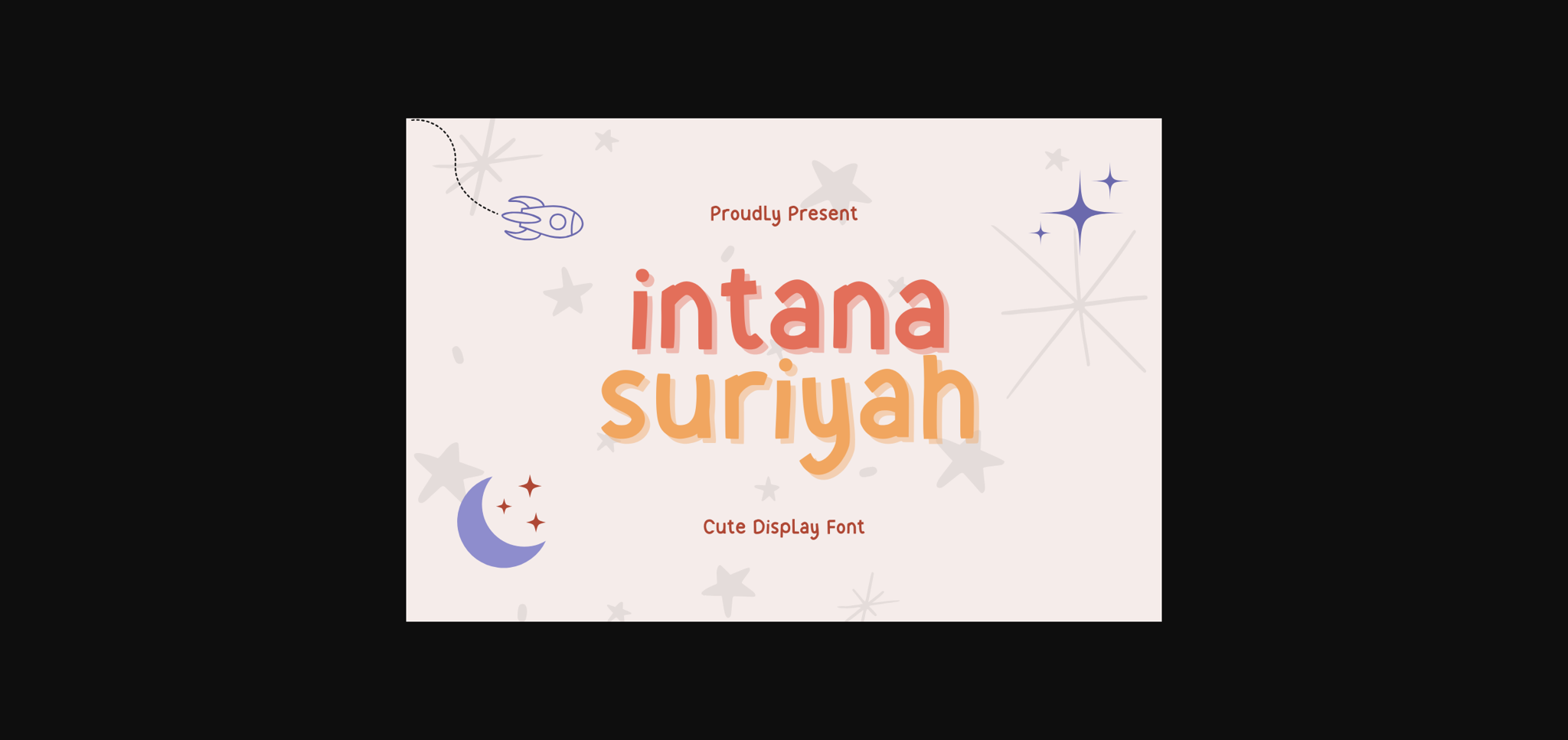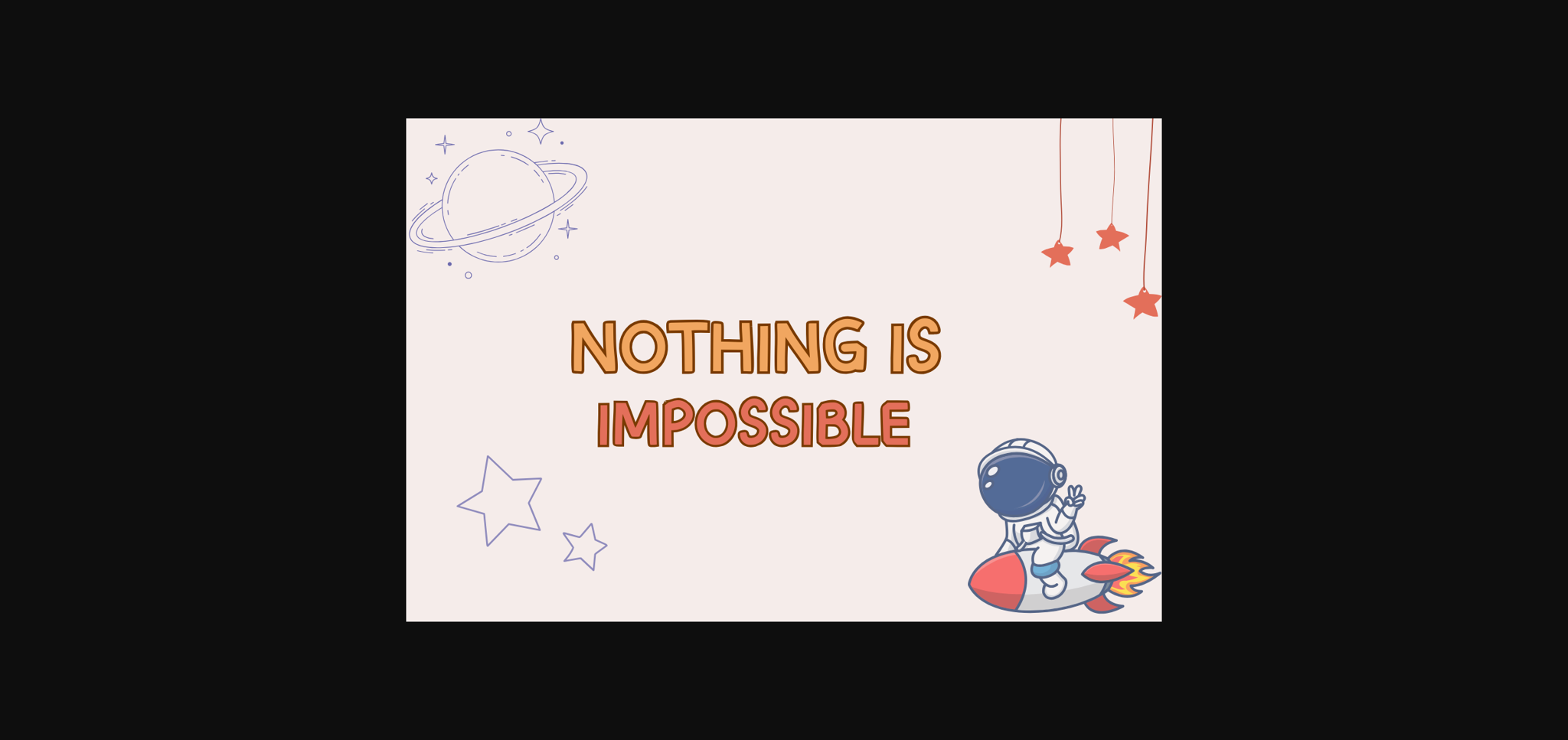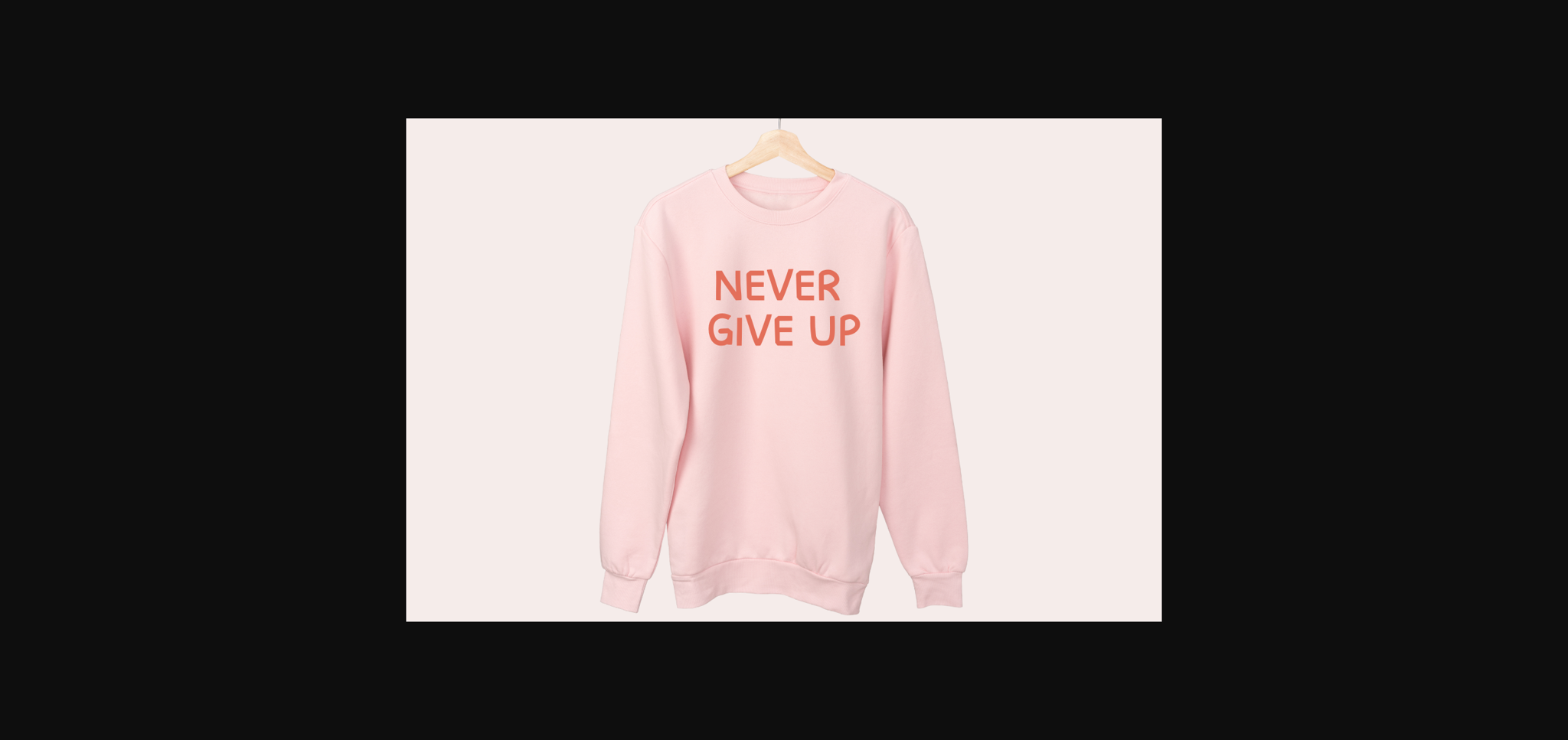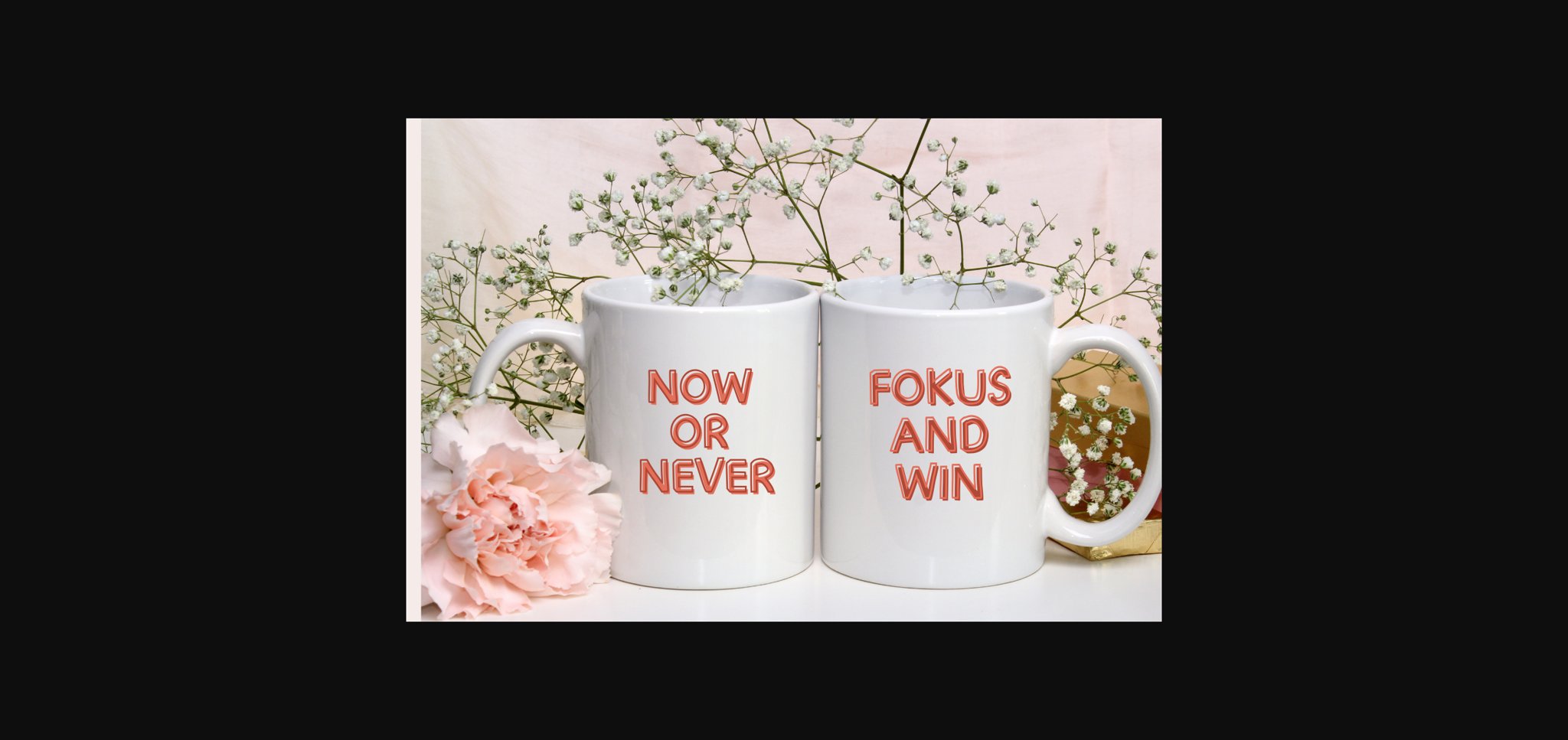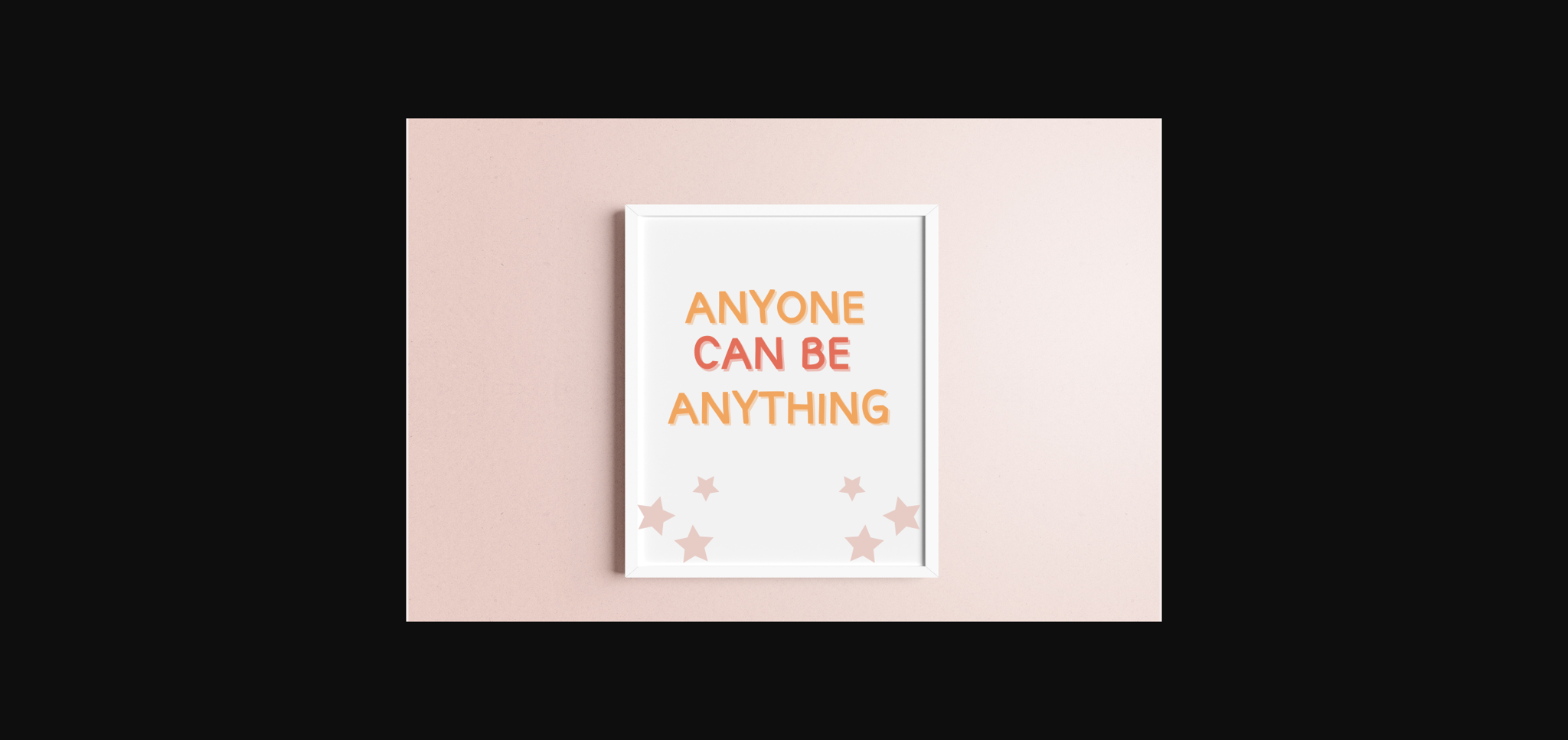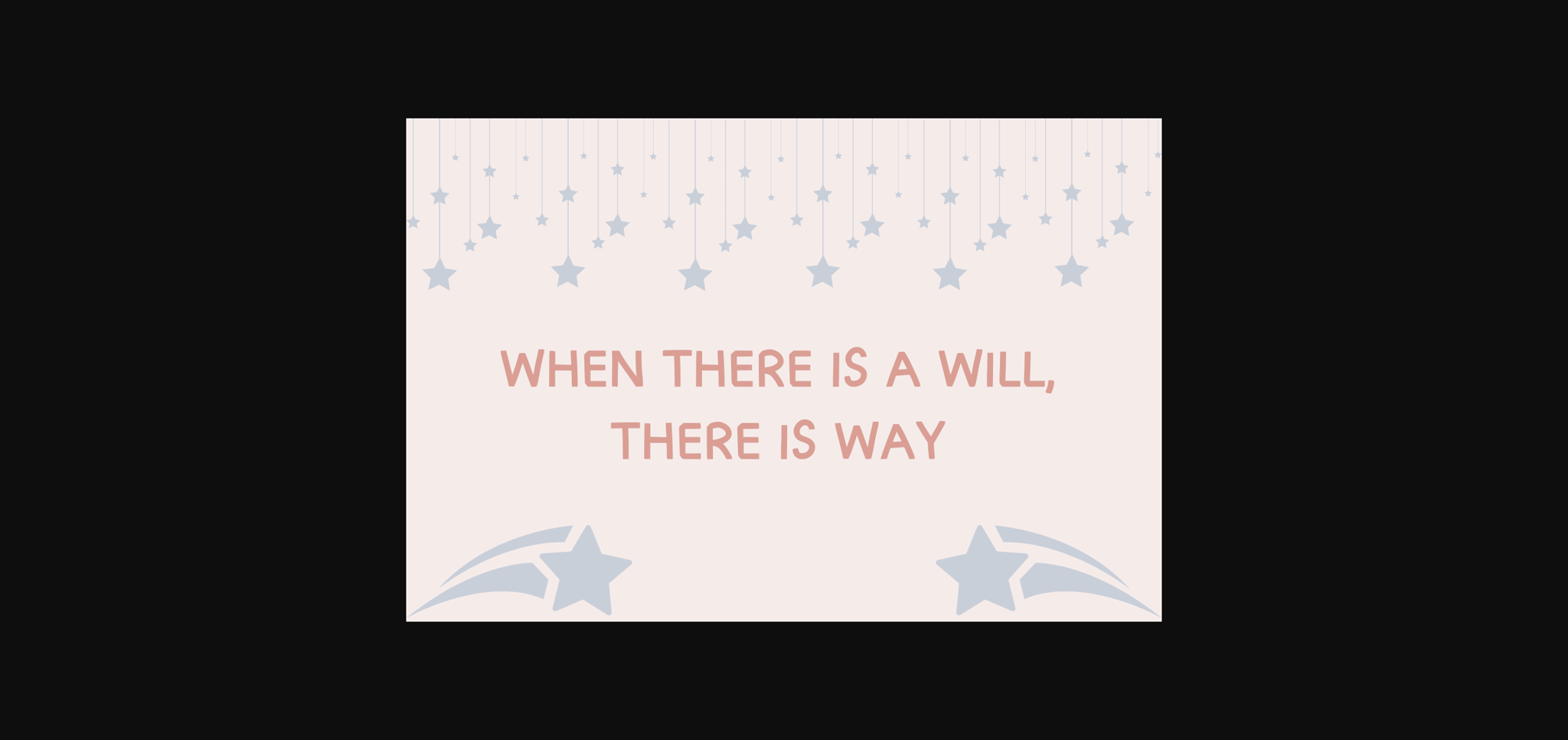
Intana Suriyah Font
About Intana Suriyah Font
Intana Suriyah is a fun and unique sans-serif font. This font will be a great asset to your font library, as it has the potential to enhance any creation.